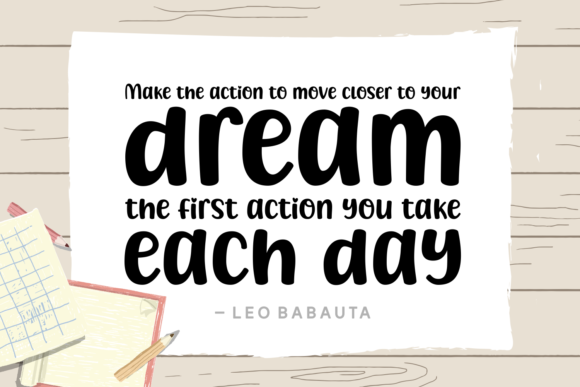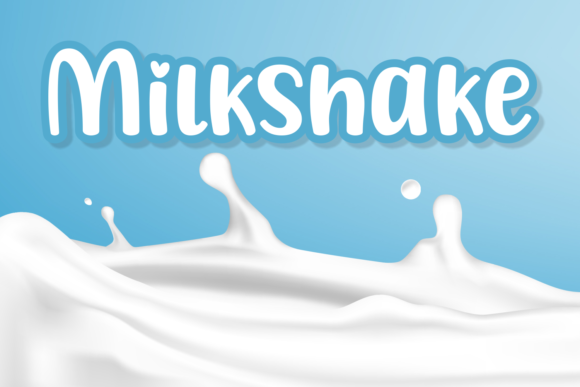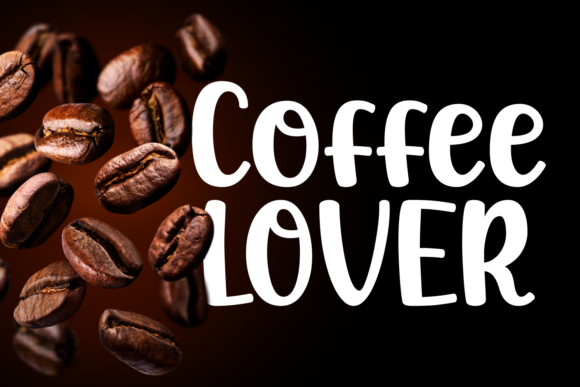
Introduction to Milky Drops Font
Milky Drops is a cute and chubby display font.
This cartoon-like typeface is perfect for farm product packaging, branding, logos, food&drinks menus, posters, covers, quotes, labels, and branding .
Key Features of Milky Drops Font